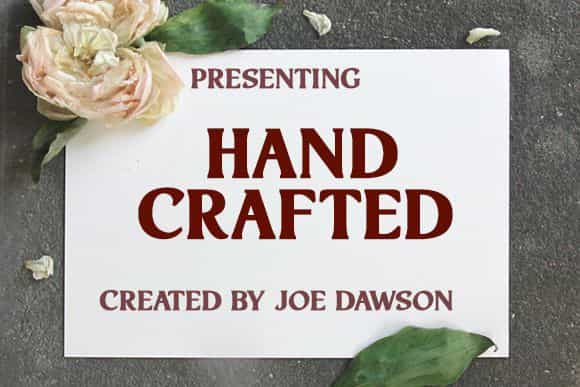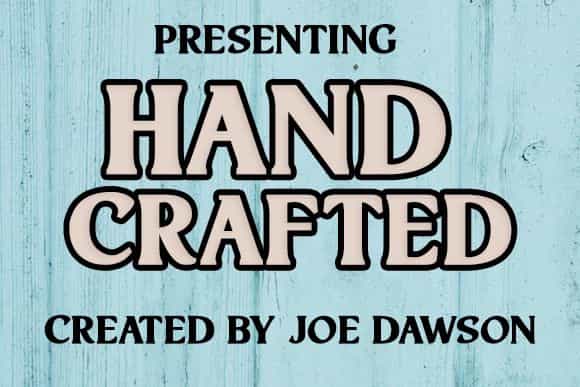
Inspired by display typography featuring rounded serifs Hand Crafted blends classic design elements, with a contemporary twist that brings it into the modern era. The blend of contemporary elements gives this font an appearance and ambiance that makes it suitable, for any time period.